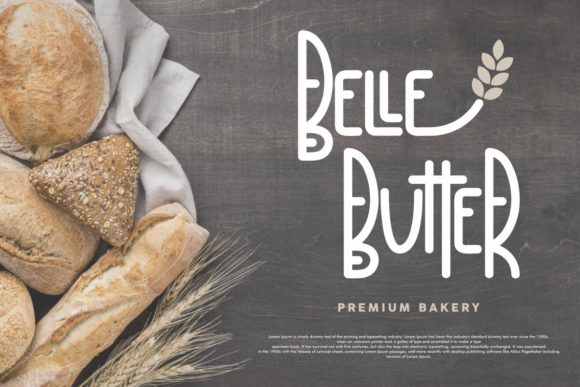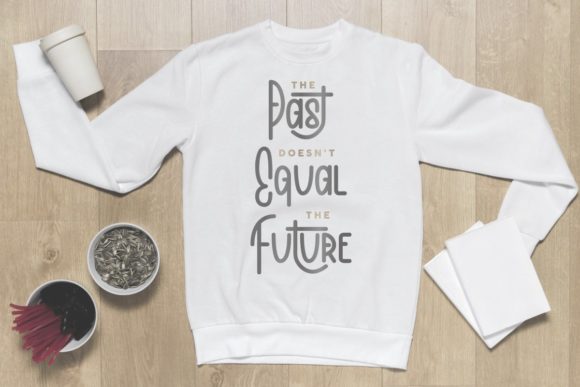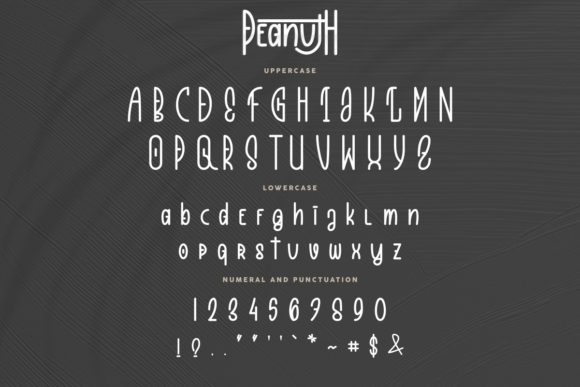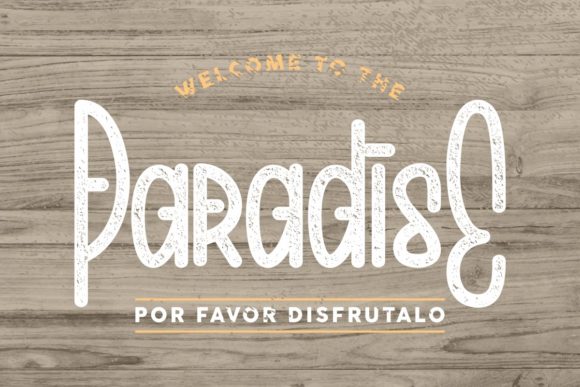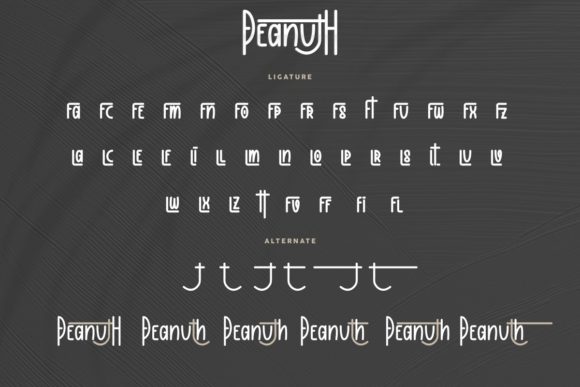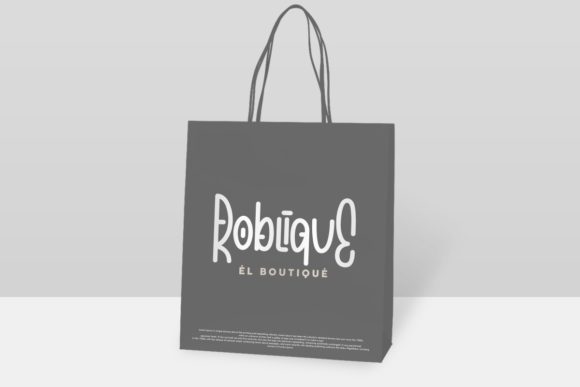
Introduction to Peanuth Font
Have you ever stumbled upon that perfect font that elevates your creative project from good to great? For designers, it’s that ‘aha’ moment when everything falls into place. For me, it was the discovery of the Peanuth Font. Its vintage charm and versatility made it an instant favorite, and I knew I had to share it with fellow creatives.
The Peanuth Font is more than just a design resource – it’s a game-changer. With its high-quality sans serif design and PUA encoding, you can access all the glyphs and swashes with ease. This means you can add it confidently to your favorite creations and let the magic happen.
Key Features of Peanuth Font
Honest Review: Peanuth Font
I recently came across the Peanuth Font and was excited to give it a try for my latest creative project. As a designer, I’m always on the lookout for high-quality design resources that can elevate my work and make it stand out. The Peanuth Font did not disappoint!
- ✨ Unique and quirky design style that adds a touch of personality to any project.
- ⚠️ Limited font weights and styles may not be suitable for complex design projects.
- ⚠️ Some users may find the font’s quirky style not to their taste.
Overall, I’m impressed with the Peanuth Font and would definitely recommend it to designers looking for a unique and creative design resource. While it may not be perfect, its strengths far outweigh its limitations, making it a great addition to any designer’s toolkit.
Peanuth Font
To get the most out of the Peanuth Font, use it for creative projects that require a high-quality, unique design. Common use cases include branding, logos, brochures, and social media graphics. Remember to pair the font with a transparent background to create a modern and sleek look.